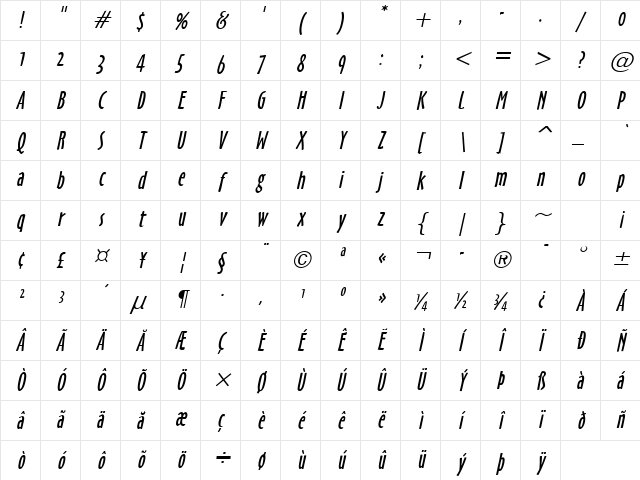
Hobby Italic
Design Context for Hobby
Hobby is a composed and adaptable typeface that performs quietly and consistently across a wide range of design contexts. The slanted form adds forward momentum and visual energy.
Pro Tip: Use Hobby for emphasis, pull quotes, and subheadings where its slanted energy can add rhythm to the layout.